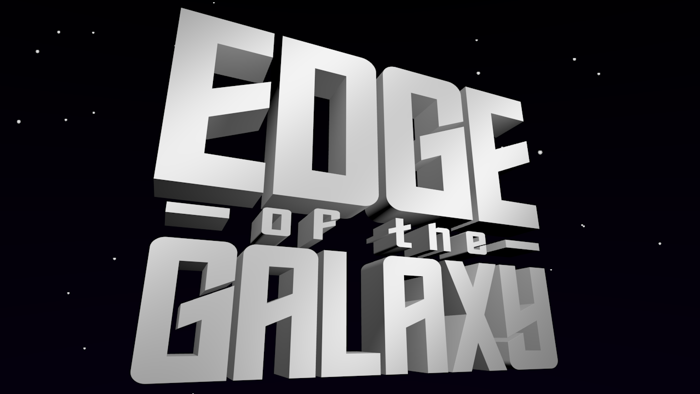
Edge of the Galaxy Font
Poster Style
Poster Italic Style
Edge of the Galaxy, a font where no man has gone before.
Inspired by the Star Trek logo and the font Horizon by Bitstream, This font follows a slant design to work as a space age corporate font. It's also super tight, for use on display and posters.